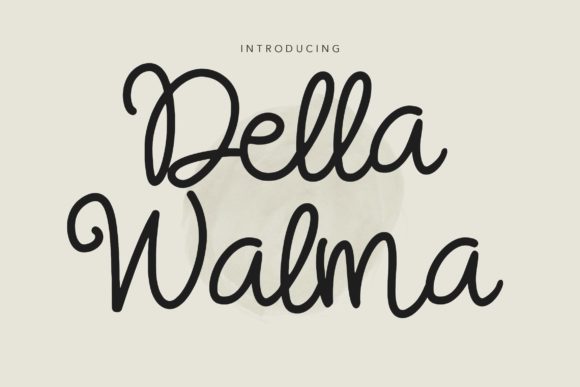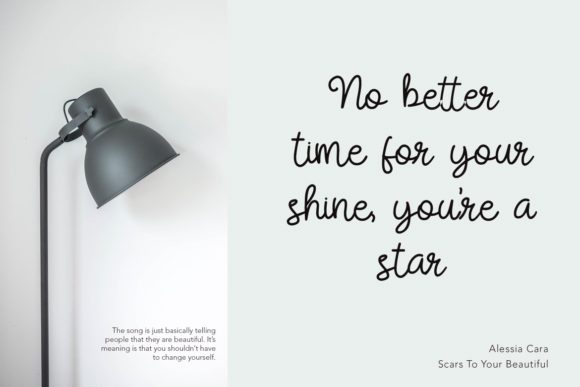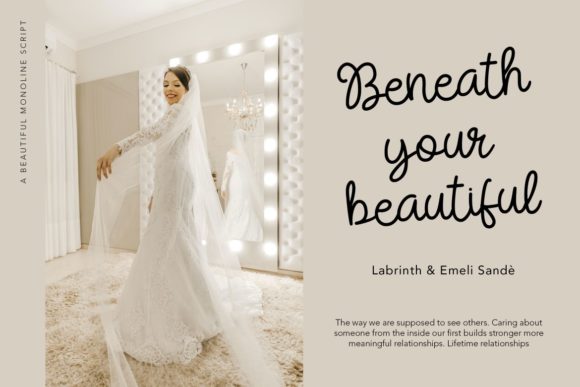
Della Walma Font
About Della Walma Font
Della Walma is an elegant and dainty handwritten font that features sweet and delicate swashes. This original look will appeal to a wide range of crafty ideas, from letterheads and titles, to stationery.